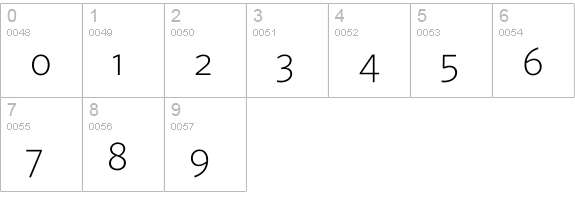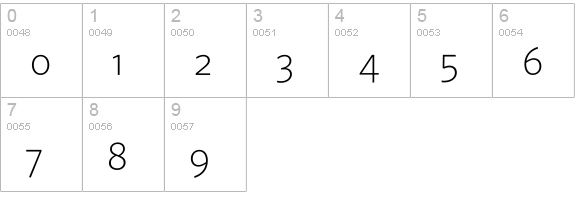
Whitney-LightSC Font Details
Whitney-LightSC font is a stunning typeface that exudes elegance and sophistication. With its delicate and refined strokes, this font is perfect for adding a touch of class to any project. The clean and modern design of Whitney-LightSC font makes it versatile and suitable for various purposes, whether it be for branding, advertising, or even personal use. What sets Whitney-LightSC font apart is not only its timeless aesthetic but also the fact that it is free. Yes, you read that right - this exquisite font is freely available to download at FontsMarket.com. This means that you can enhance your designs without having to spend a dime. Whether you are a professional designer looking for a high-quality font to elevate your work or an individual seeking to add a touch of sophistication to your personal projects, Whitney-LightSC font is the perfect choice. Its versatility, elegance, and the fact that it is freely available make it a valuable asset in any design toolbox. Download Whitney-LightSC font today from FontsMarket.com and discover the endless possibilities it offers. Elevate your designs to new heights with this exceptional and free font.